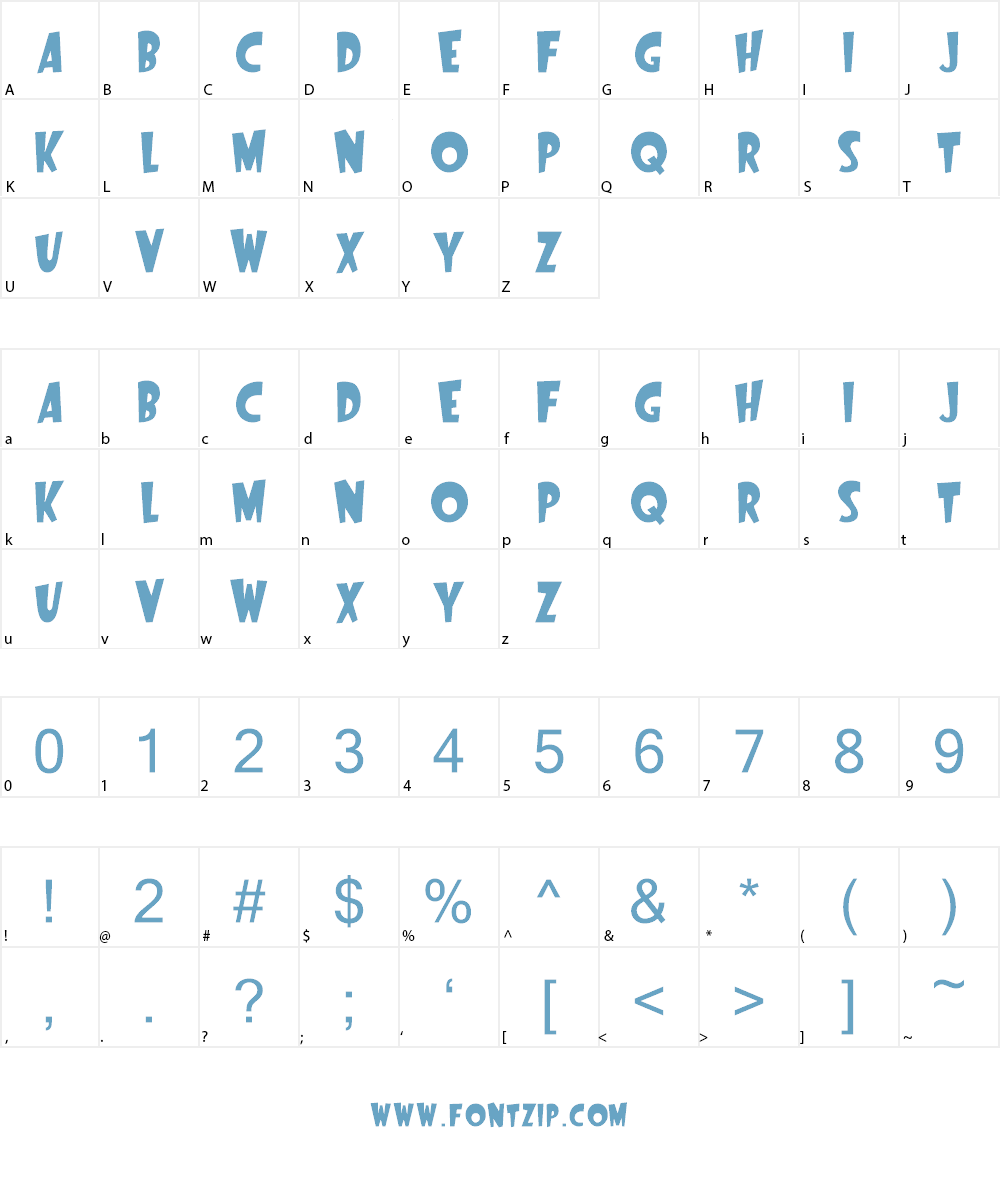
Take me to your leader! The genesis of this font was a reproduction in miniature of a cover from that old pulp Science Fiction magazine, "Startling Stories." I thought the masthead appealing, so I ventured to extrapolate an entire alphabet with only the characters A, E, G, I, O, L, N, R, S, and T as my guide. The result is a mixed bag that seems a heckuva lot more wacky than the venerable nameplate that sired this misbegotten font. Sets well at point sizes 18 and above.
Incidentally, I recently noticed that a very similar font, one also obviously modeled on the "Startling Stories" masthead, was used for the opening titles of that infectious, goofy 1989 film "Earth Girls Are Easy."